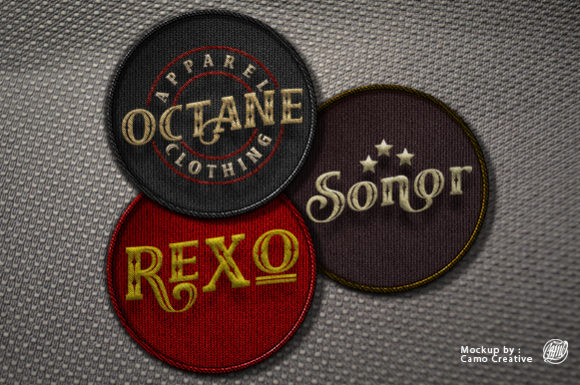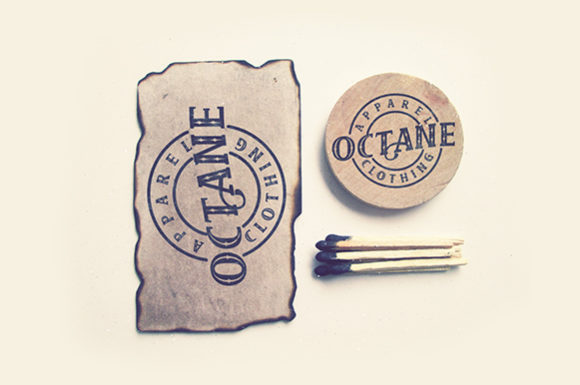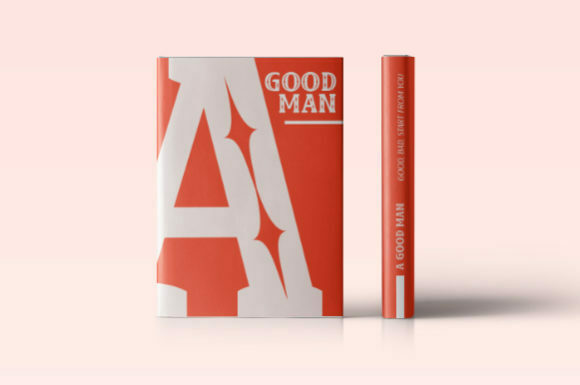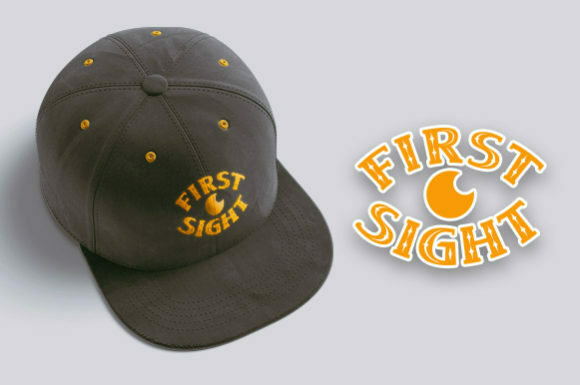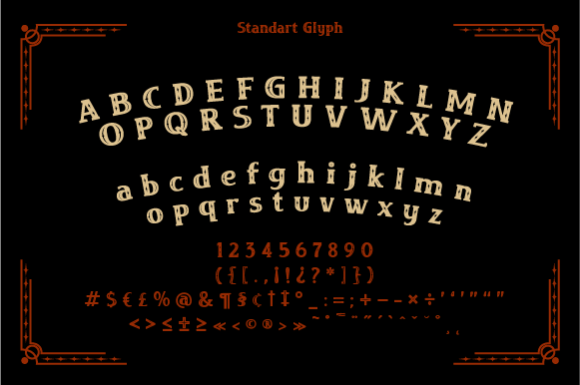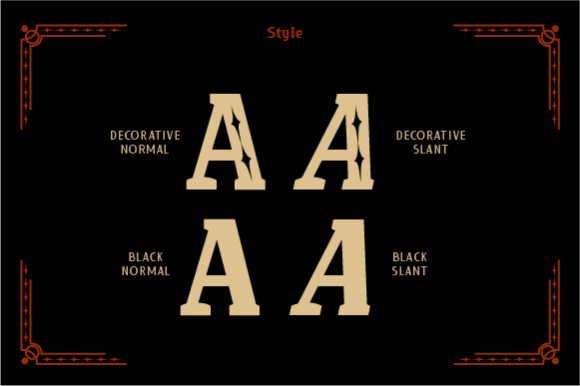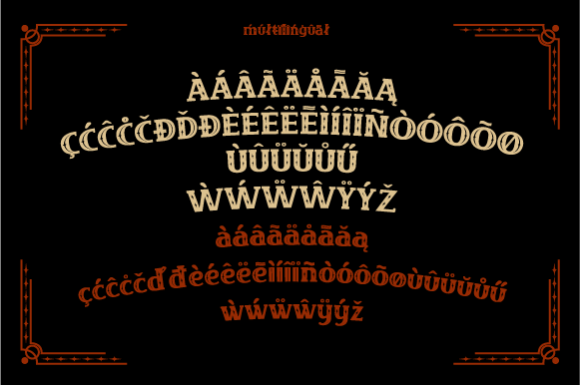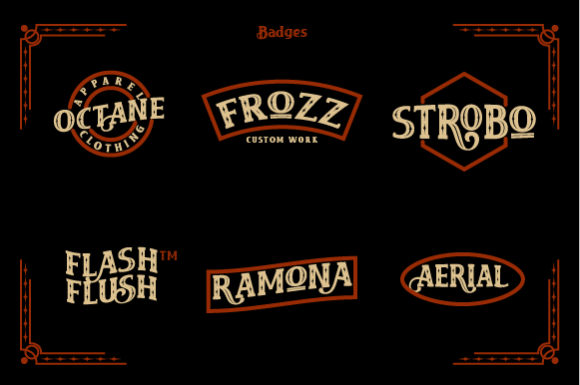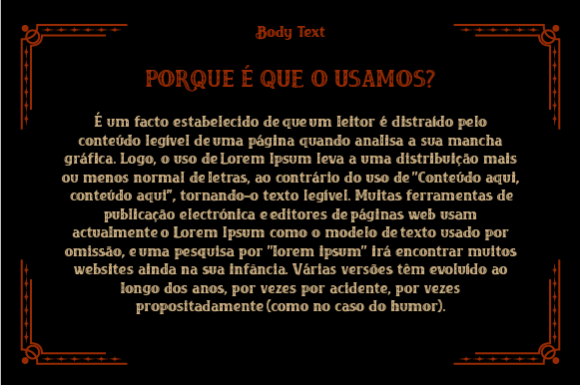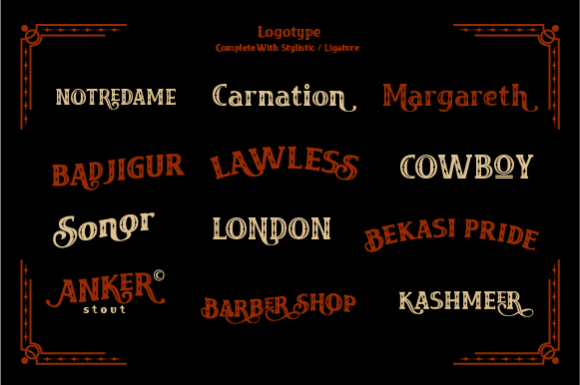
Rexo Font
REXO FONT SPECIMEN
Rexo has a firm, old-fashioned, and decorative appearance. Its Art Deco style makes it great for evoking a nostalgic and elegant feel!